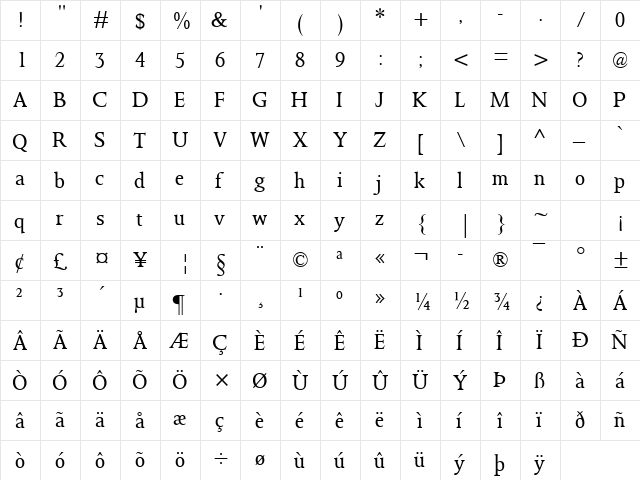
OctavianMT Regular
Design Context for OctavianMT Typeface
OctavianMT is a composed and adaptable typeface that performs quietly and consistently across a wide range of design contexts.